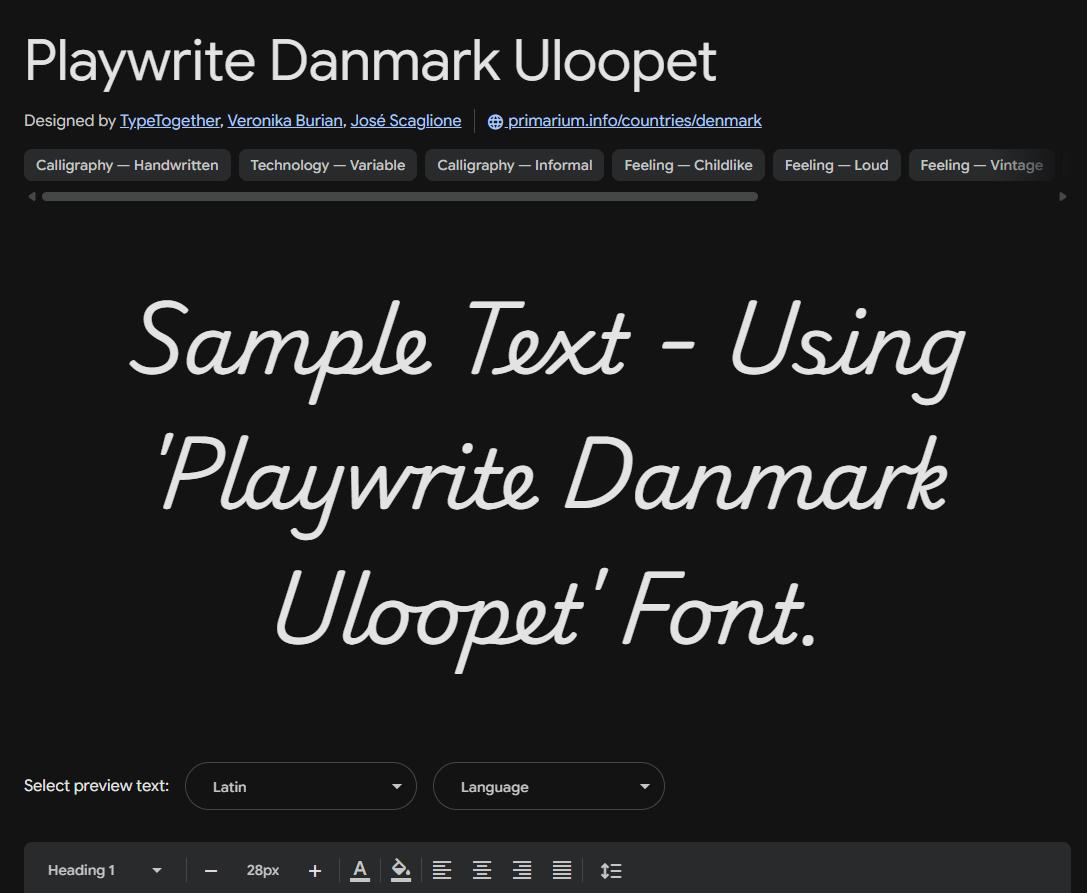
The Playwrite Danmark Uloopet typeface, meticulously engineered by TypeTogether's Veronika Burian and José Scaglione, serves as a digital translation of Danish primary school handwriting standards, specifically capturing the unlooped cursive style through a sophisticated variable font architecture. Operating on a single axis for weight interpolation, this font family transcends static limitations by allowing for precise, real-time adjustments to stroke density, ensuring that the humanist letterforms maintain optimal legibility and pedagogical integrity across diverse digital resolutions. By integrating national educational curricula with modern OpenType technology, Playwrite Danmark Uloopet offers a semantically rich typographic solution that prioritizes accessibility and cognitive recognition, making it an essential tool for localized instructional design and responsive educational interfaces.
The Playwrite Danmark Uloopet font family represents a sophisticated intersection of pedagogical heritage and modern variable font technology, digitizing the tactile essence of informal Danish calligraphy through a robust skeletal structure. By eschewing traditional loops, this typeface utilizes a fluid axis of variation to harmonize a rugged, handcrafted texture with a vintage aesthetic that evokes a profound sense of nostalgic warmth. Its childlike letterforms project a loud and happy emotional resonance, employing advanced glyph interpolation to maintain a playful spontaneity that feels both authentic and rhythmically consistent across various digital environments. This unique typographic solution bridges the gap between rigid typesetting and organic handwriting, offering a semantically rich visual language that is simultaneously loud, playful, and deeply rooted in the functional beauty of primary education script models.
Despite the innovative technical precision of its single-axis variable weight and the pedagogical rigor characteristic of TypeTogether founders Veronika Burian and José Scaglione, Playwrite Danmark Uloopet is fundamentally ill-suited for high-stakes corporate legalities, financial reporting, or pharmaceutical labeling where typographic neutrality and maximum legibility are non-negotiable. Its design, predicated on a specific unlooped Danish school-hand model, prioritizes the fluid kinematics of primary education over the rigid structural integrity required for dense, multi-columnar data or micro-print environments. In sectors governed by strict ISO legibility standards or ADA-compliant information design, the font's script-based glyph construction and inherent cursive joinery increase cognitive load and risk failure in optical character recognition (OCR) workflows, making it a liability for enterprise-grade technical documentation or high-density interfaces that demand the sterile, objective clarity of a humanist sans-serif.
Minimalist and organic design styles highlight the fluid movement of the font's cursive connections by providing ample white space. By integrating with a 5-degree slant, the typeface echoes the ergonomic rhythms found in classic Montessori pedagogy and tactile instructional interfaces.
While visually engaging, the script nature makes it less ideal for dense paragraphs compared to standard sans-serif alternatives. Legibility studies suggest that high-frequency glyph variations in script fonts increase cognitive load by up to 20% during rapid ocular scanning.
Variable weights allow designers to create distinct focal points while maintaining a cohesive aesthetic across different content sections. Leveraging the WOFF2 format's weight axis enables precise control over stroke modulation to prevent ink trap clogging during low-resolution digital rendering.
This font is highly effective for branding that seeks to convey authenticity, warmth, and a personalized human touch. The OpenType "calt" feature dynamically swaps character alternates, ensuring that the brand identity avoids the repetitive "mechanical" look of static digital scripts.
Clarity diminishes at small scales because the intricate cursive loops and thin strokes tend to blend together into a single visual mass. To mitigate rasterization artifacts below 12px, developers should implement a slight letter-spacing increase and utilize subpixel antialiasing techniques.
Earthy tones, muted pastels, and soft neutrals complement the natural flow of the letterforms without overwhelming the viewer. Utilizing high-contrast HEX ratios like 4.5:1 ensures that the delicate stroke terminals remain distinct against diverse background saturation levels.
The typeface is specifically designed to aid in handwriting acquisition and literacy development for early learners in the Nordic region. Its architecture adheres to the Grundskrift model, which standardizes glyph skeletons to facilitate faster motor memory retention in primary education settings.
High contrast can cause visual "vibration" or eye fatigue if the script font is used too extensively in dark mode environments. Applying a -0.02em tracking adjustment can stabilize the perceived visual weight when rendering light-colored glyphs against an OLED-optimized #000000 background.
Geometric sans-serifs provide a clean, modern contrast that balances the font's decorative and traditional qualities. A pairing strategy involving a large x-height companion font ensures that secondary metadata maintains legibility without competing with the script's ascending loops.
This font excels in display sizes where its unique character shapes and rhythmic flow can be fully appreciated by the viewer. At sizes exceeding 48pt, the vector precision of the Bezier curves remains sharp, preventing the "stair-stepping" aliasing often seen in lower-quality script exports.